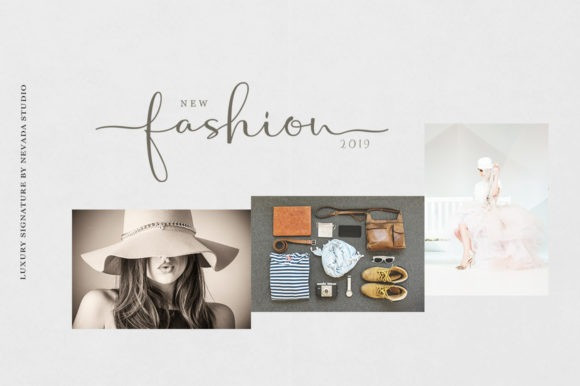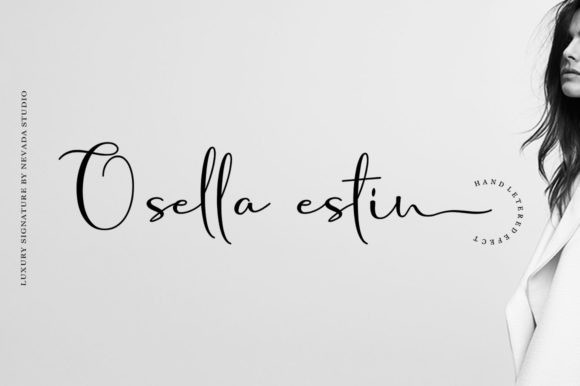
Osella Estin Font
Osella Estin Font is a natural handwritten font. It has a great readability and is perfect for adding an elegant touch to your designs.